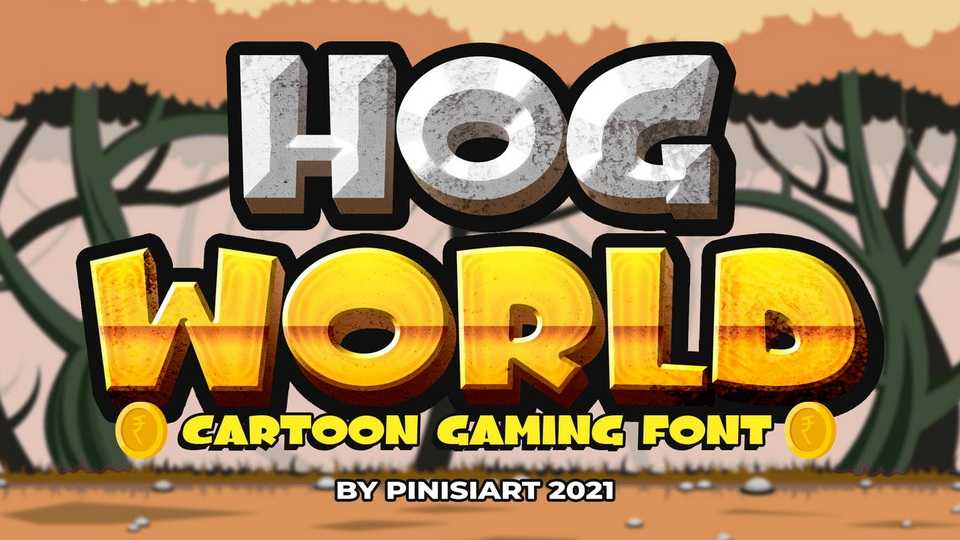
Download Hog World font, a cartoon typeface. The big and bold but yet still bring you a smile. HOG WORLD is the man. Suit perfectly for cute children books market, online games, stationary, school supplies and more.